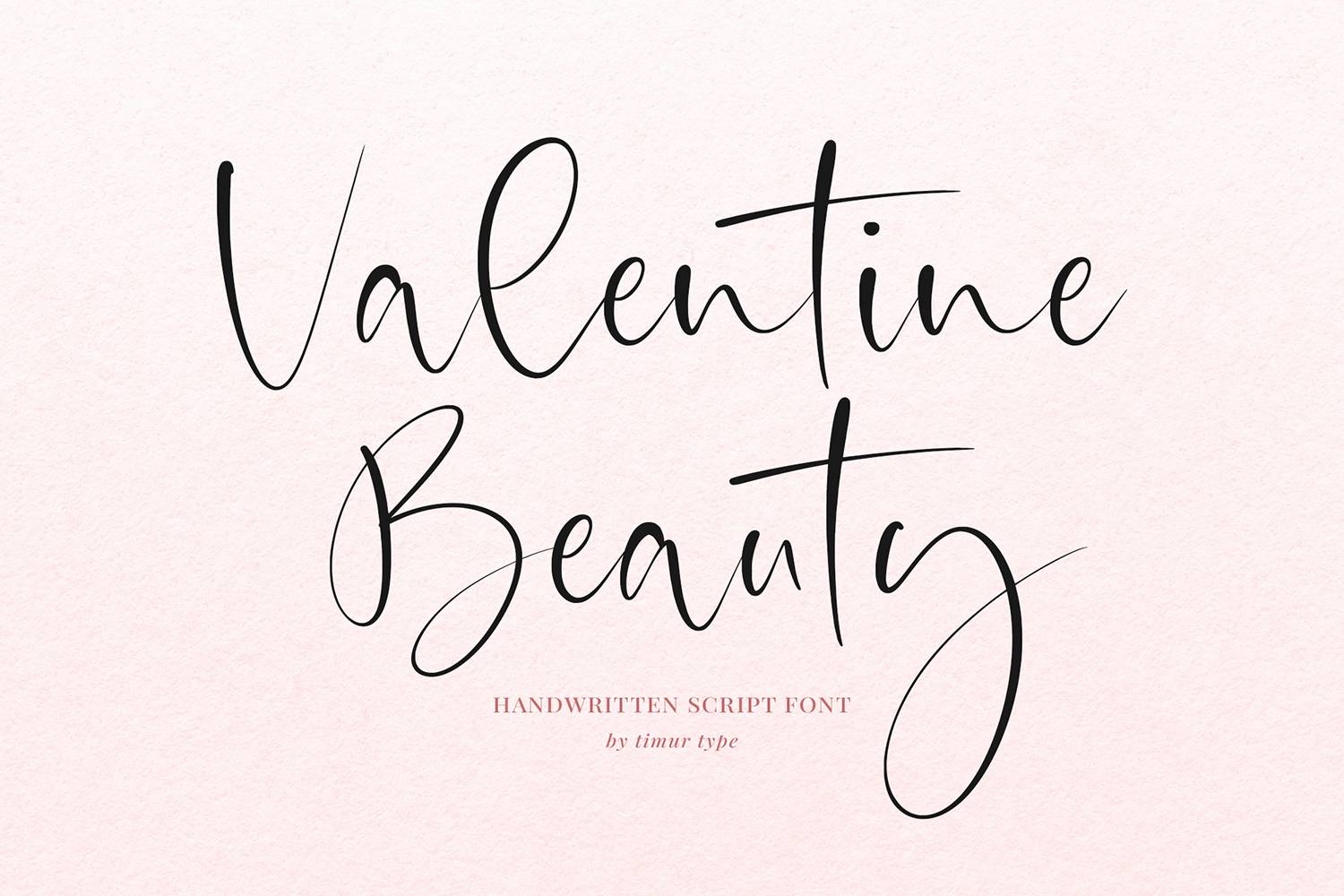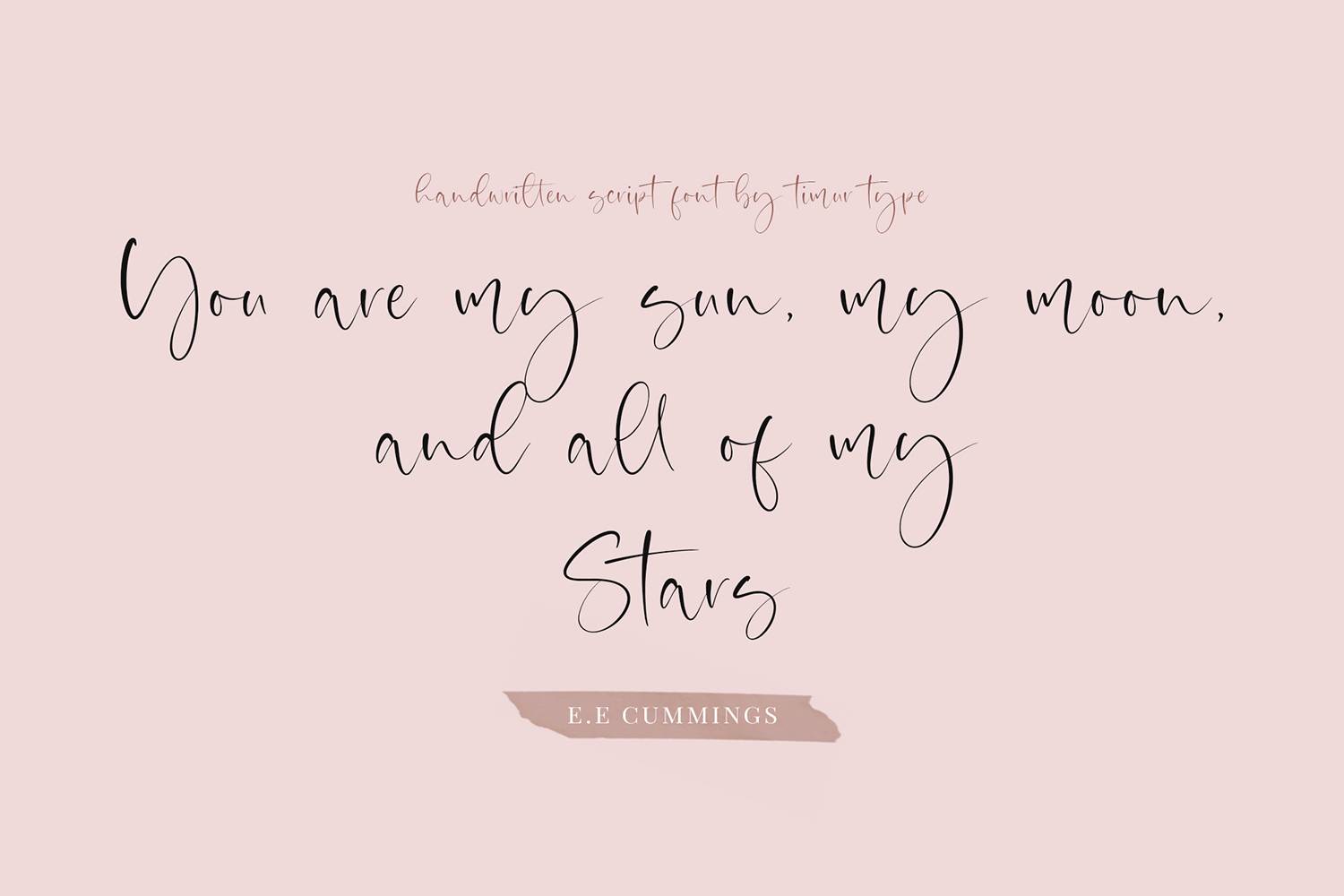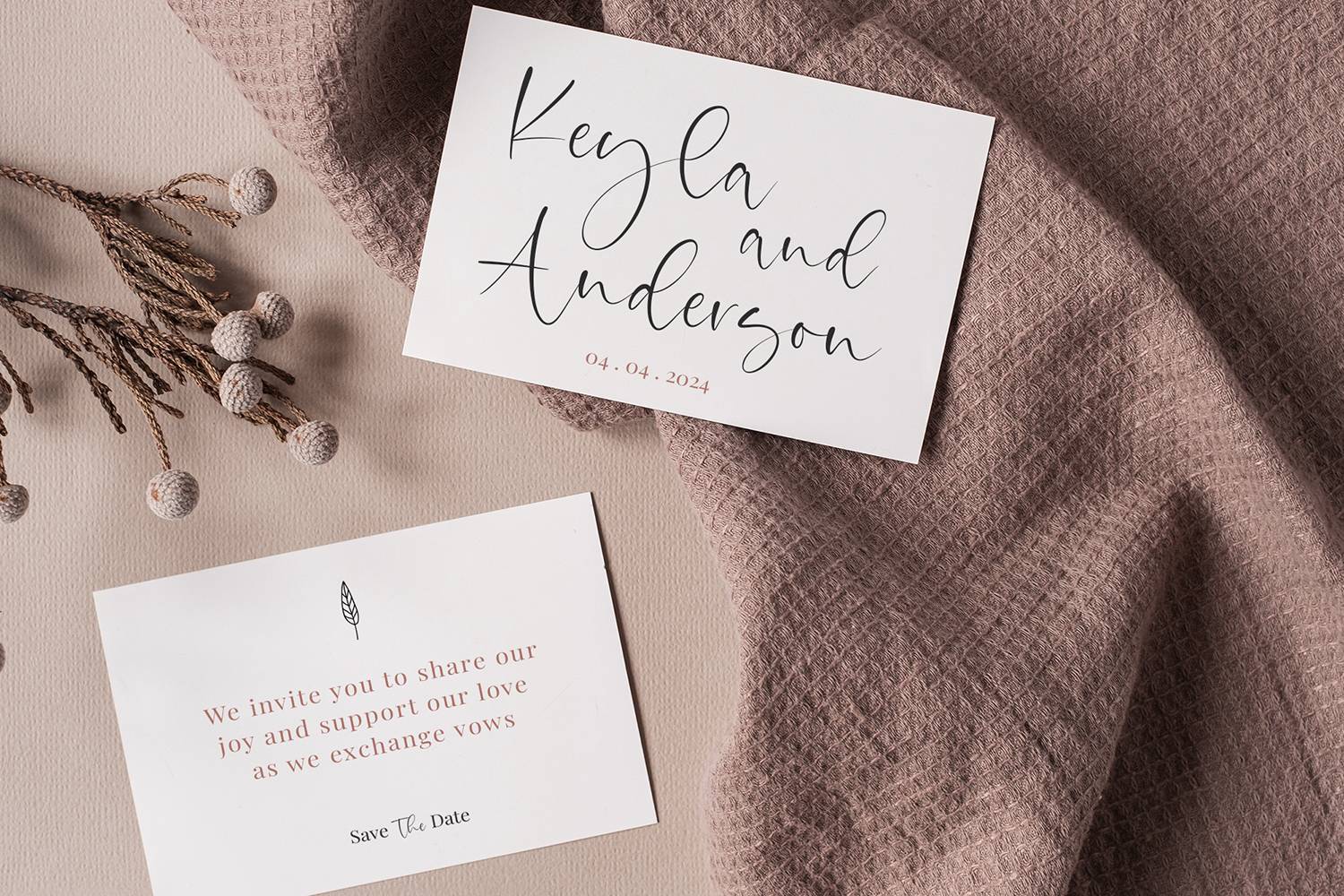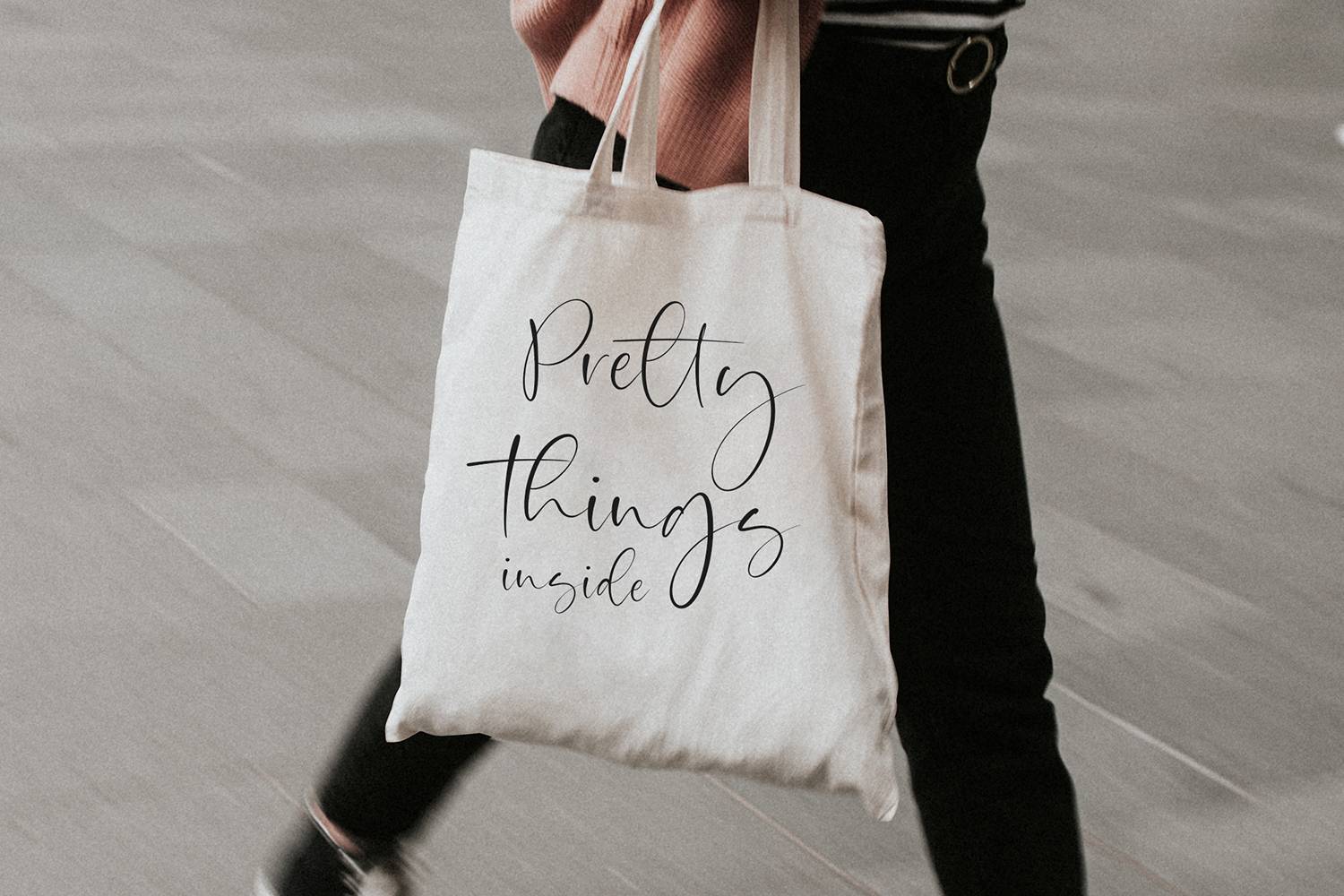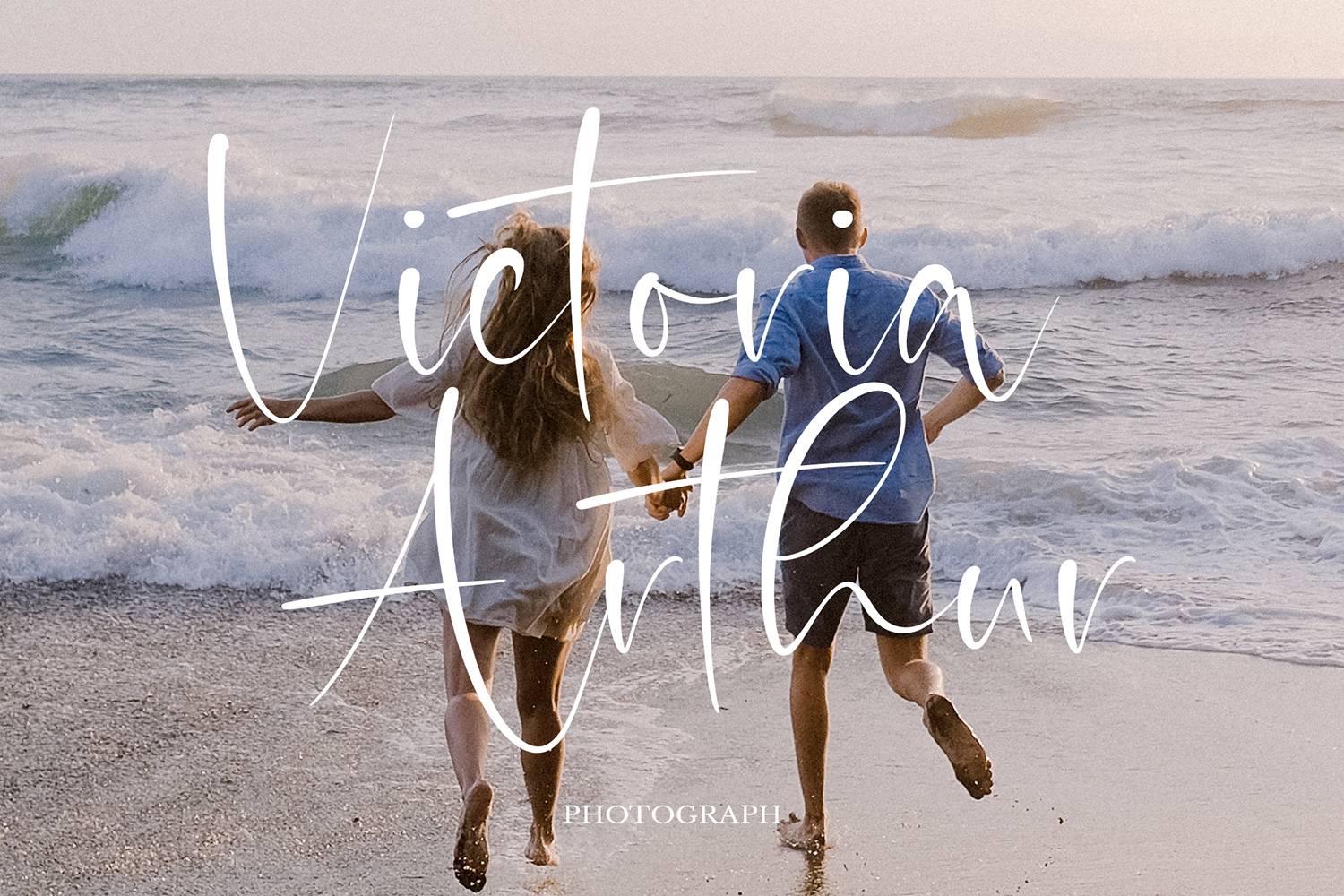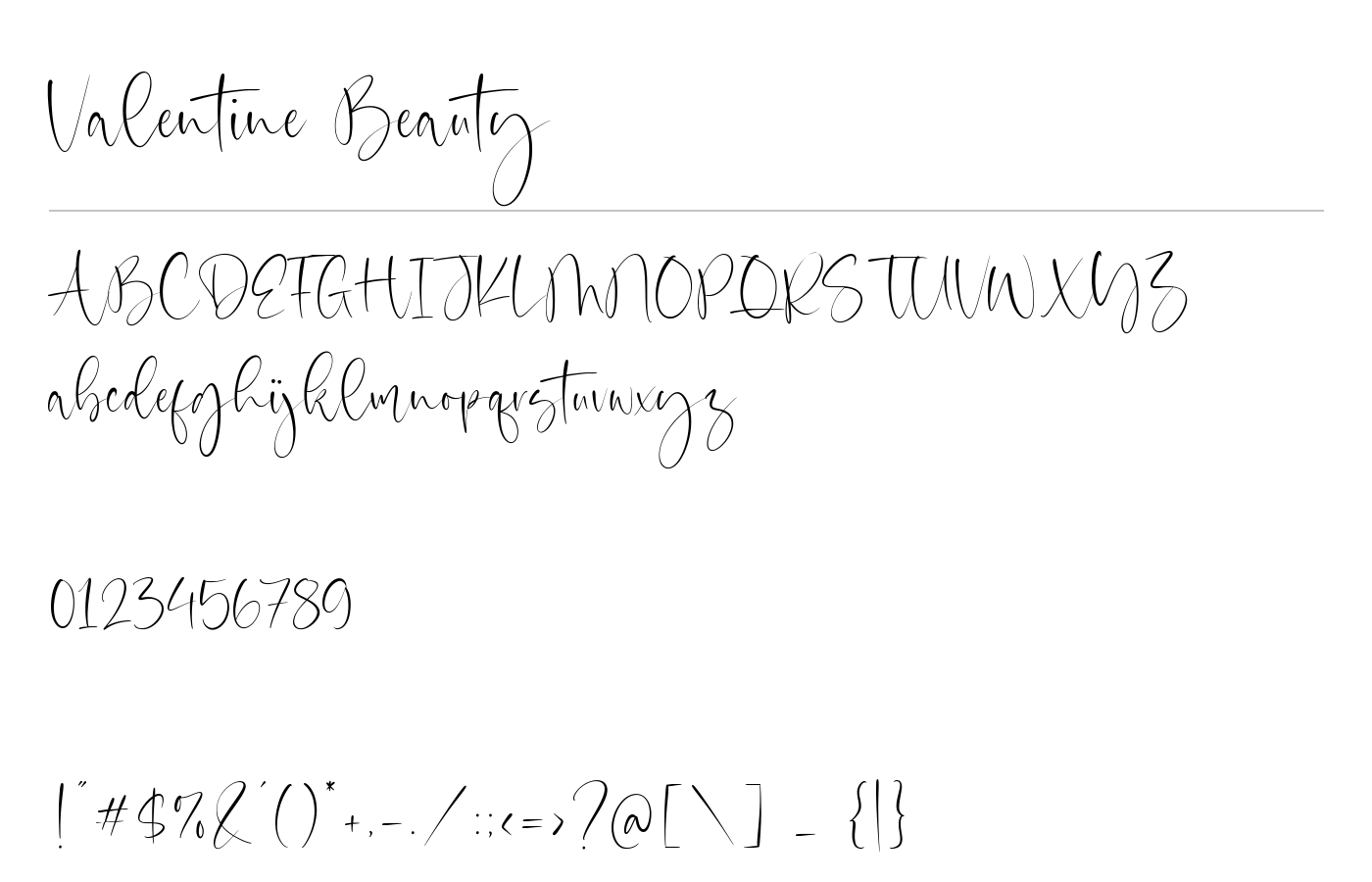
Valentine Beauty is a delicate, handwritten script font with a light weight and elegant, flowing strokes that convey a romantic and graceful feel. Its tall, narrow letterforms with whimsical loops and subtle variations create a charming, personal touch perfect for invitations, branding, and feminine design projects. This font works beautifully in contexts where a soft, refined, and handwritten style is desired to evoke warmth and sophistication.
Valentine Beauty Font
About Valentine Beauty Font